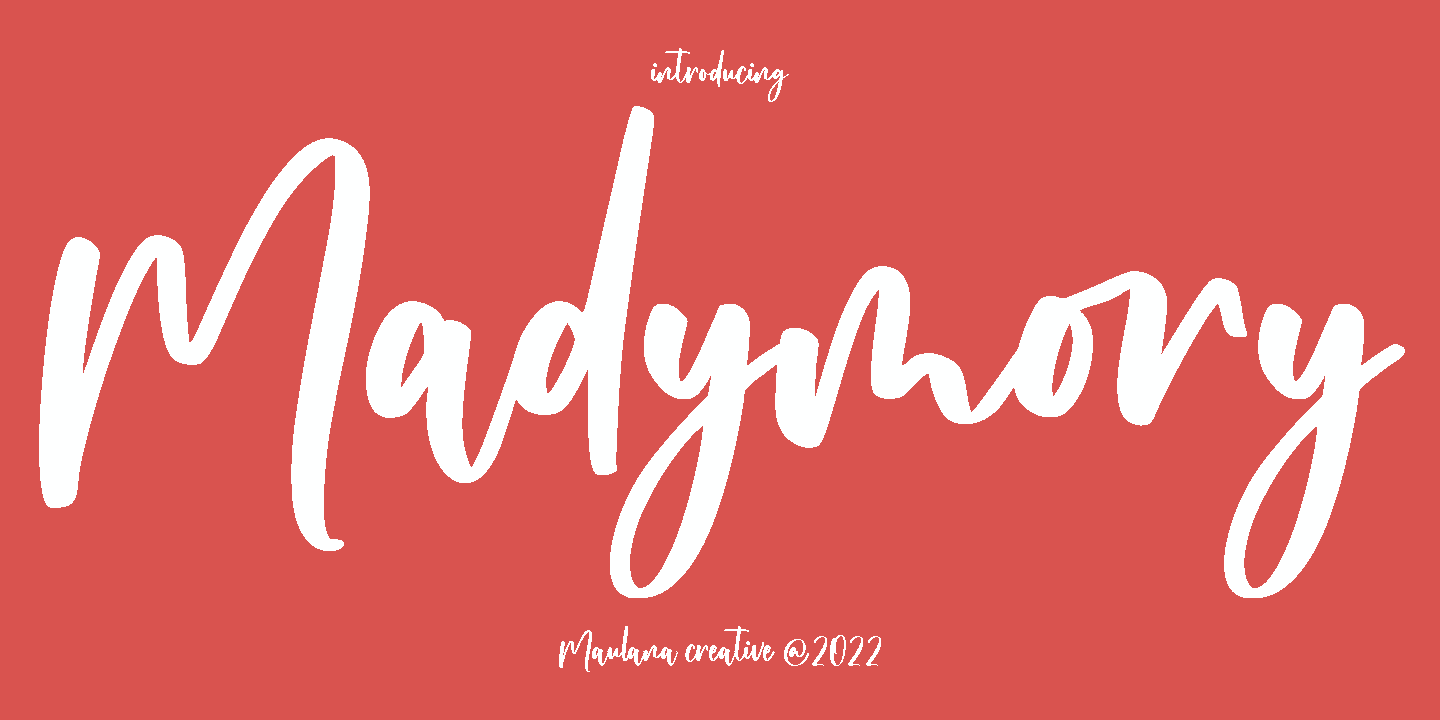
Madymory Font is perfect for vintage-inspired branding, nostalgic poster designs, retro gaming logos, classic movie titles, heritage brand packaging, antique shop signage, historical publications, and artisanal product labels. This distinctive typeface excels in nostalgic design applications, vintage revival projects, and any creative work requiring authentic period character that evokes memories and timeless appeal.
What makes Madymory Font exciting is its remarkable ability to transport viewers back in time while maintaining contemporary usability and design relevance. The font features carefully crafted letterforms with authentic vintage characteristics that capture the essence of classic typography from bygone eras, making it ideal for brands seeking to establish heritage credibility and nostalgic connections. Its timeless character ensures emotional resonance across generational audiences.
Madymory Font family includes multiple weights and styles: Regular, Bold, Light, Medium, Italic variations, and decorative vintage alternates with period-appropriate flourishes. Each family member maintains the authentic nostalgic character while offering comprehensive design flexibility for diverse vintage-themed projects, from subtle period accents to bold retro headlines that command attention with classic appeal.
Whether you're designing heritage brand identity or creating nostalgic marketing campaigns, Madymory Font Free Download provides the perfect typography solution for vintage-inspired design needs. This font transforms ordinary text into evocative visual storytelling that communicates authenticity and timeless quality. Vintage enthusiasts and heritage brand designers choose this typeface for its ability to convey nostalgic charm through authentically crafted letterforms that celebrate design history.